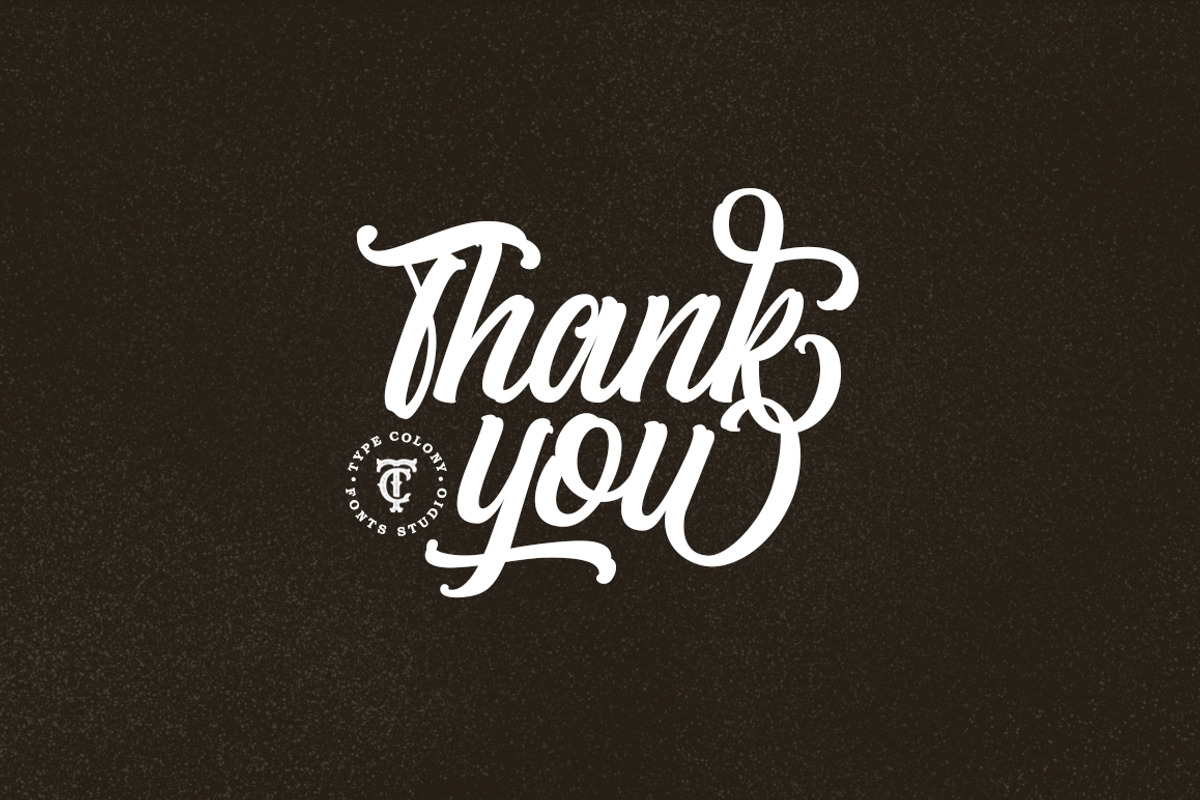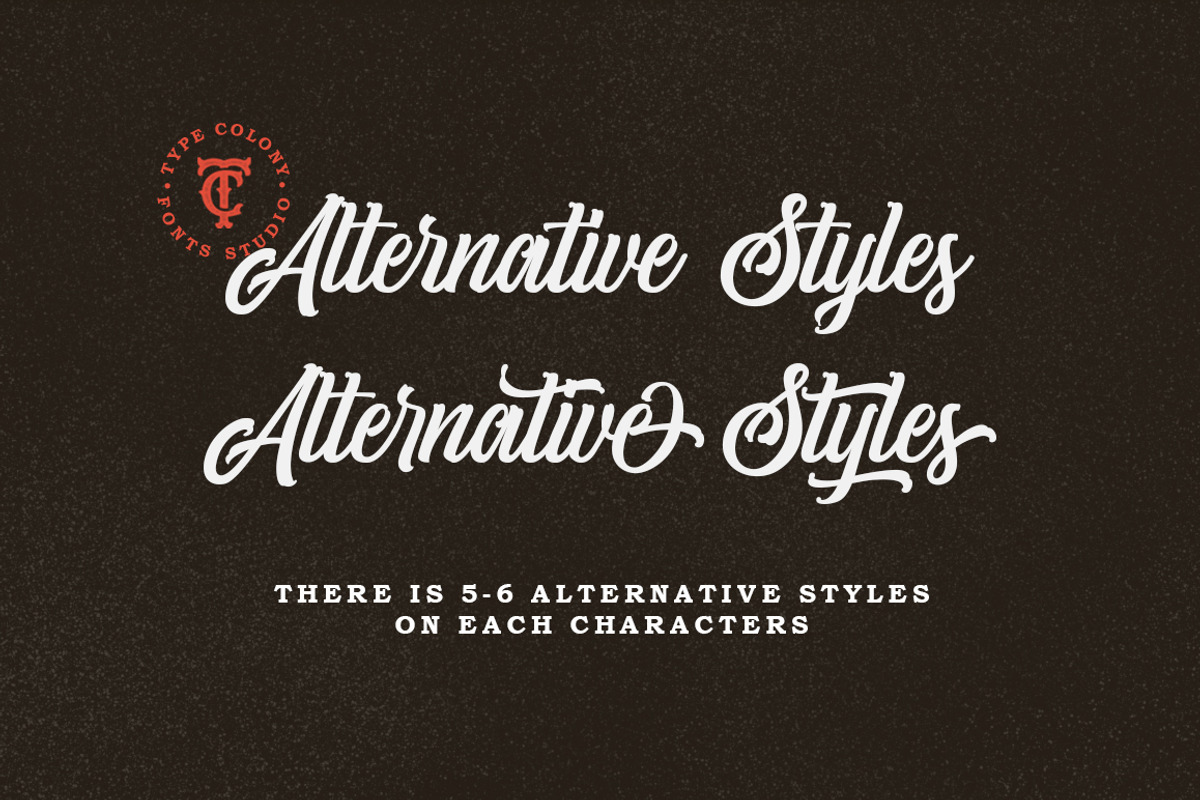
Subletter Script
INTRODUCING SUBLETTER SCRIPT
Subletter Script is a casual script typeface with stylist style, clean, and great movement this typeface and allow you to make lettering and logotype quickly and easily. This typeface is inspired by brush lettering and sign painting that have strong styles and classy for using on project such as Logotype, Letterhead, Poster, Apparel Design, Label and etc.
Subletter have so many variations on Stylistic Styles, Ligatures, Discreationary Ligature, and Alternative Character. Also include multilingual support for the following languages; English, French, Italian, Spanish, Portuguese, German, Swedish, Norweigen, Danish, Dutch, Hungarian, Finnish, Polish, Indonesian, Filipino, Malay